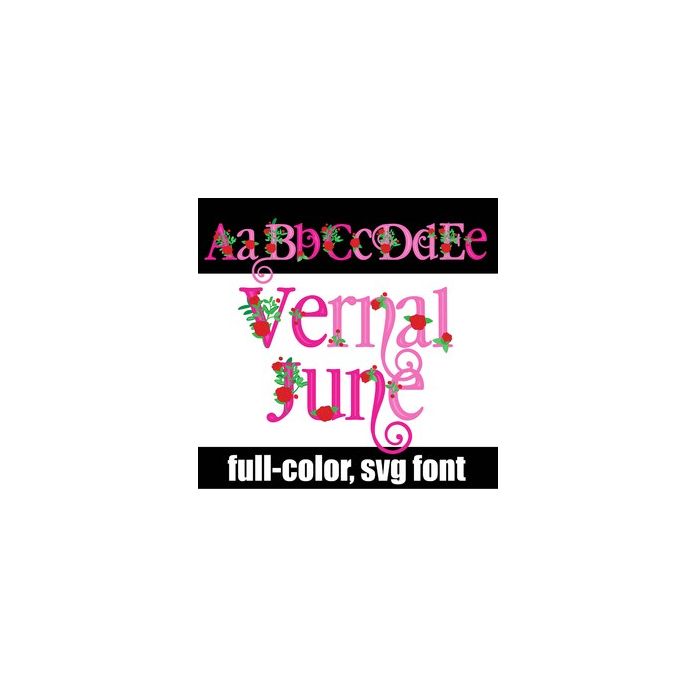
This full-color font features flowers on swooping, flourished lettering. There is an alt case w/ additional colors you can access through your system or Silhouette's glyph map.